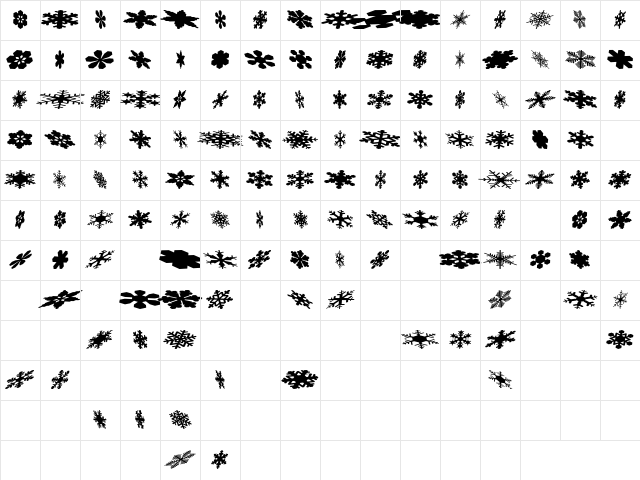
SnowflakesFalling Regular Free Font
SnowflakesFalling Regular
Design Context for SnowflakesFalling
SnowflakesFalling is a composed and adaptable typeface that performs quietly and consistently across a wide range of design contexts.
Pro Tip: Use SnowflakesFalling in both headline and body roles to test its range before committing to a single application.